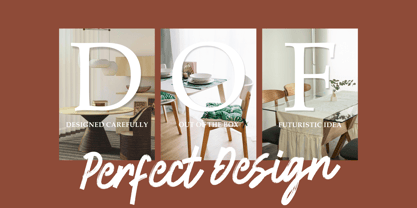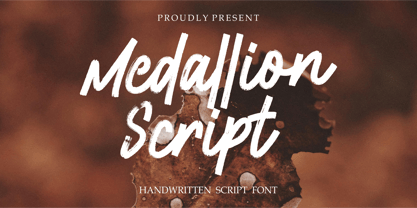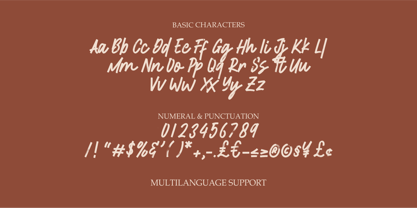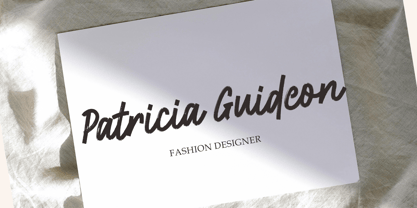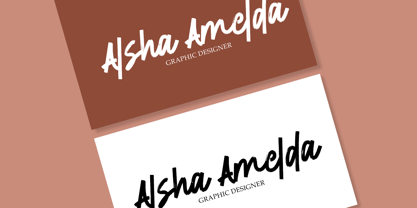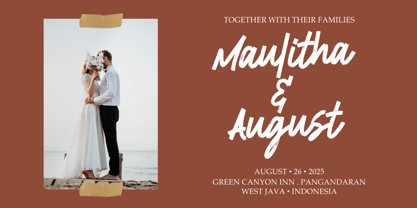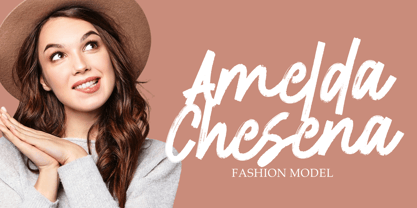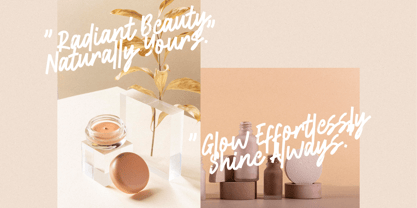
Medallion Script
by MJB Letters
The Medallion Script Font Family was designed by Muhammad Mujibulloh and published by MJB Letters. Medallion Script contains 1 styles.
Medallion Script is a bold handwritten brush font with a textured, organic feel that brings a natural, artistic edge to any design. Perfect for branding, font pairing, and logos, Medallion Script adds character and depth with its rough, hand-brushed strokes. This versatile font is also ideal for packaging, social media graphics, and creative headers, providing a dynamic touch that stands out. Medallion Script is bold. Medallion Script is versatile. Medallion Script is the perfect choice for designers who want to make an impact.
Designers: Muhammad Mujibulloh
Publisher: MJB Letters
Foundry: MJB Letters
Design Owner: MJB Letters